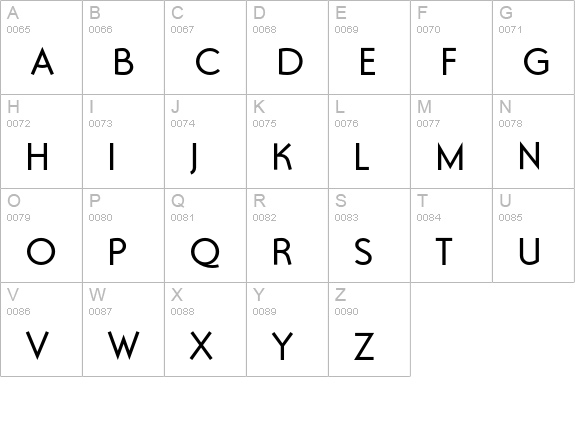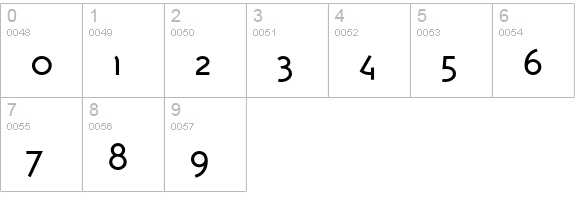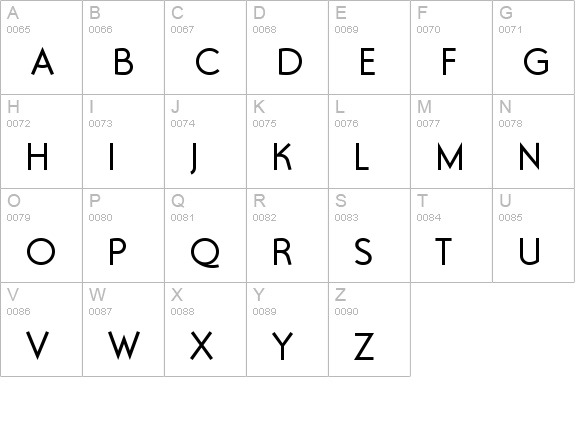
OttomatBook Font Details
Introducing OttomatBook font - a versatile typeface that strikes the perfect balance between modern sophistication and classic elegance. With its clean lines and crisp letterforms, OttomatBook exudes a timeless charm that is sure to elevate any design project. This exquisite font is not only visually appealing but also highly legible, making it ideal for a wide range of applications including editorial design, branding, and more. Its medium weight and balanced proportions give it a sense of authority and professionalism, making it a great choice for conveying a sense of reliability and trustworthiness. Best of all, OttomatBook font is available for free download at FontsMarket.com. Now you can add this stunning typeface to your font library without breaking the bank. Don't miss out on the opportunity to enhance your designs with the elegance and versatility of OttomatBook font. Download it today and see the difference it can make!